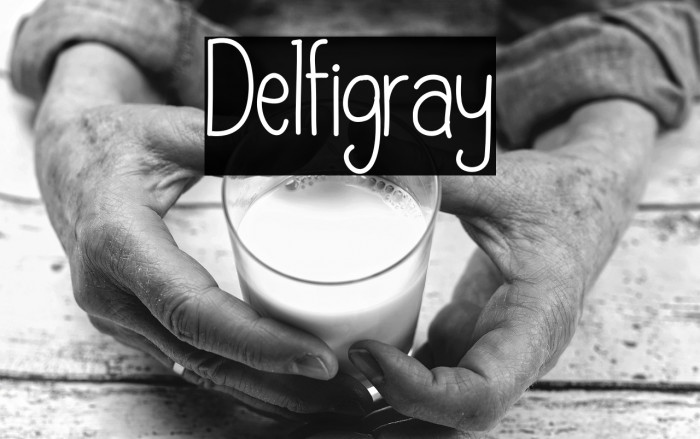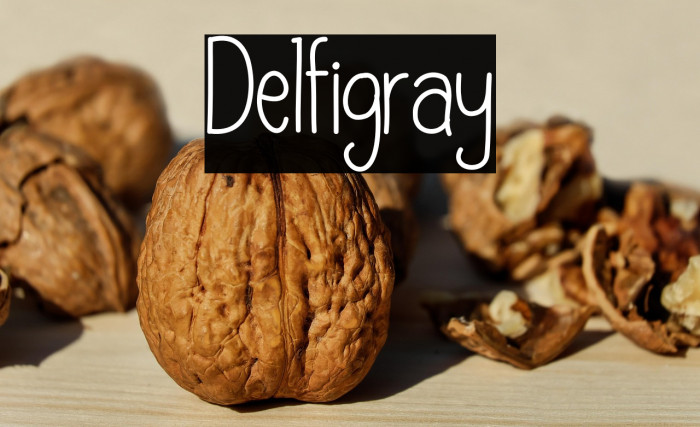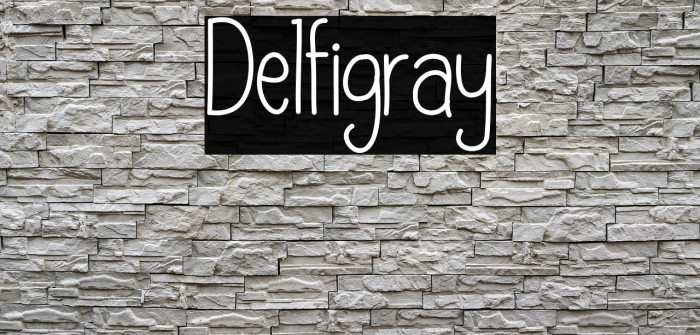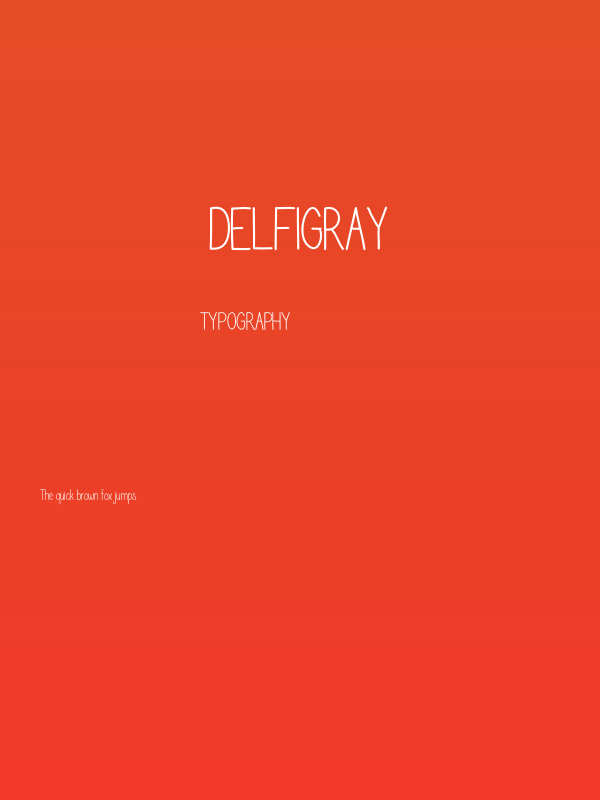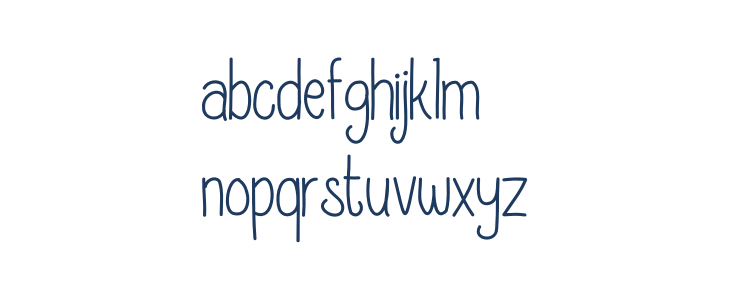
Delfigray Font
Delfigray Description
This font features a playful and whimsical style with tall, narrow letters that have a hand-drawn appearance. The strokes are consistent in width, giving it a uniform look, while the slightly irregular shapes add a touch of charm and personality. The uppercase letters are bold and prominent, while the lowercase letters maintain a similar height, creating a cohesive visual flow. The font includes a full set of uppercase and lowercase letters, numbers, and a selection of special characters. Its clean lines and simplicity make it versatile for various design projects.
| Width | Condensed |
| Overall Style | Playful |
| Proposed Projects | Ideal for children's books, playful branding, greeting cards, and creative posters. |